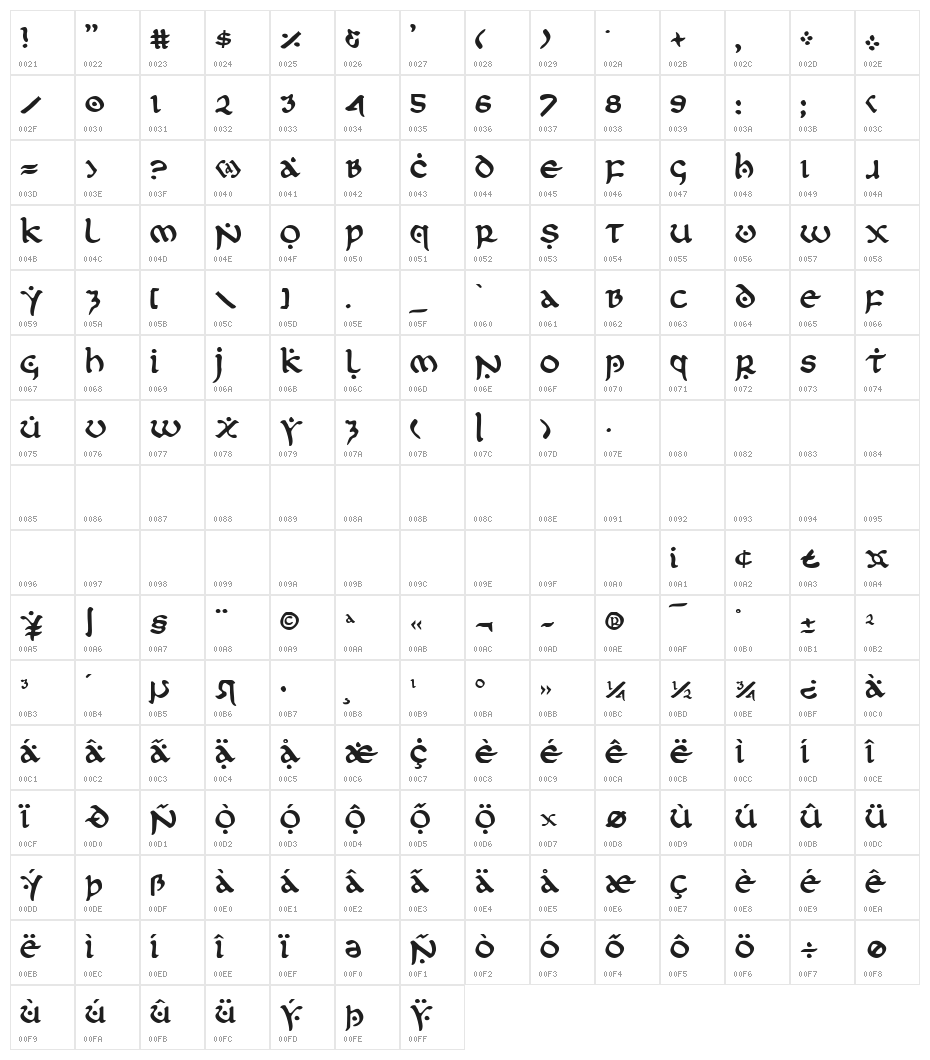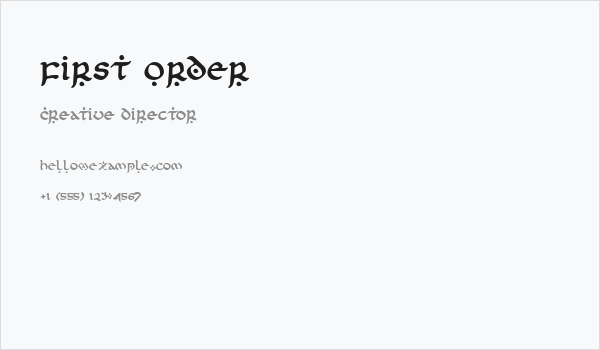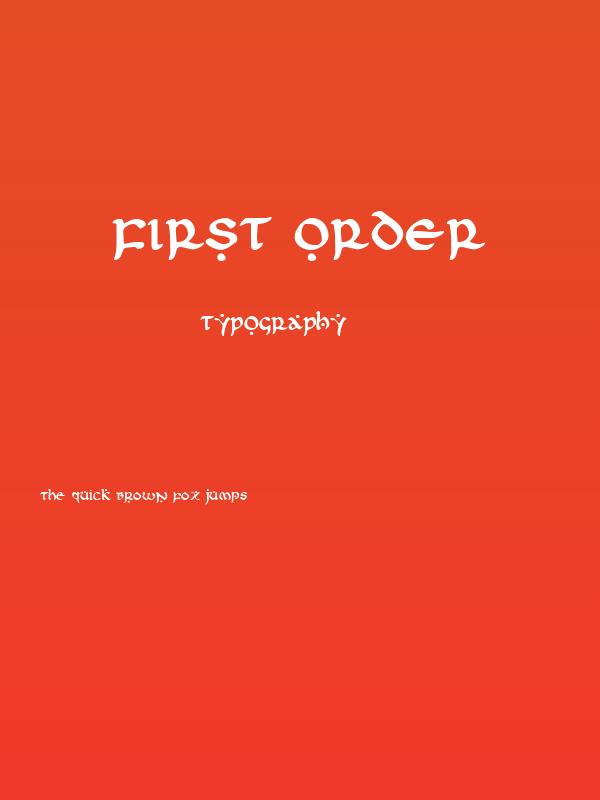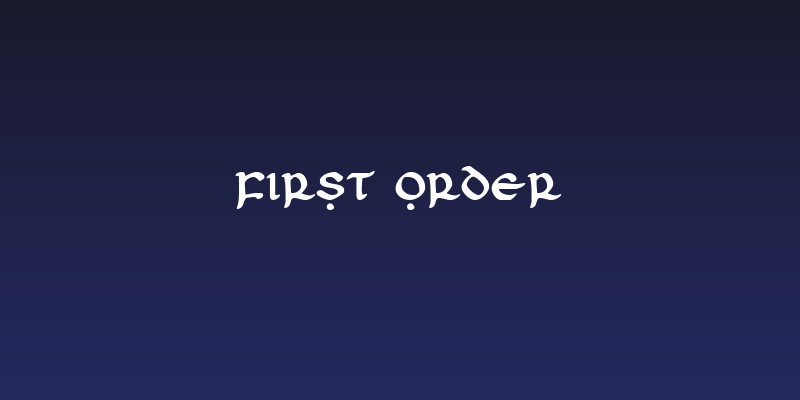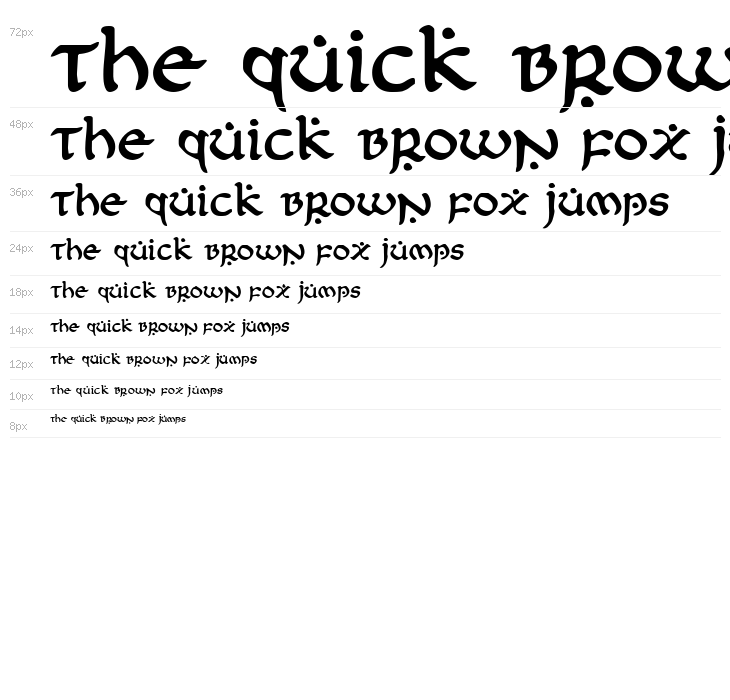
First Order Font
First Order Description
This font features a unique and artistic style, characterized by its bold and flowing strokes that create a sense of movement and elegance. The letters are slightly condensed with a whimsical flair, incorporating subtle curves and decorative elements that give it a distinct personality. The uppercase and lowercase letters maintain a consistent design, while the numerals and special characters complement the overall aesthetic. This font's playful yet sophisticated appearance makes it suitable for creative projects that require a touch of originality and flair.
| Overall Style | Artistic, Whimsical |
| Use Case | Logos, Posters, Invitations |
| Proposed Projects | Ideal for branding, posters, invitations, and artistic projects that require a unique and eye-catching typeface. |